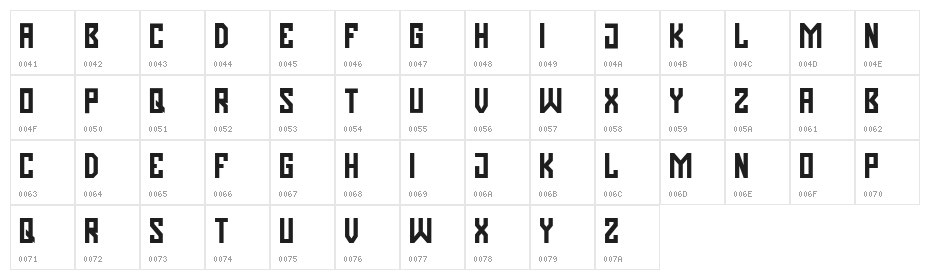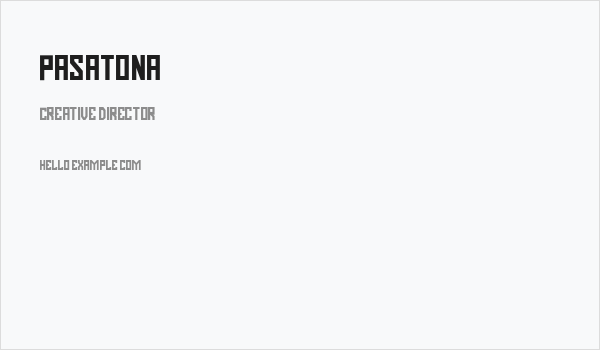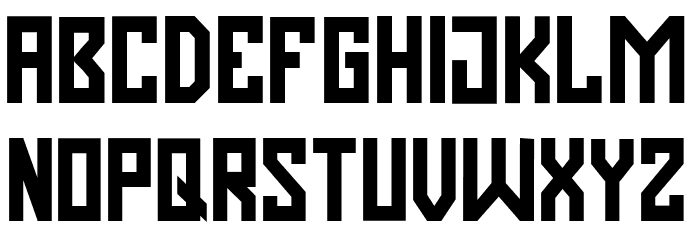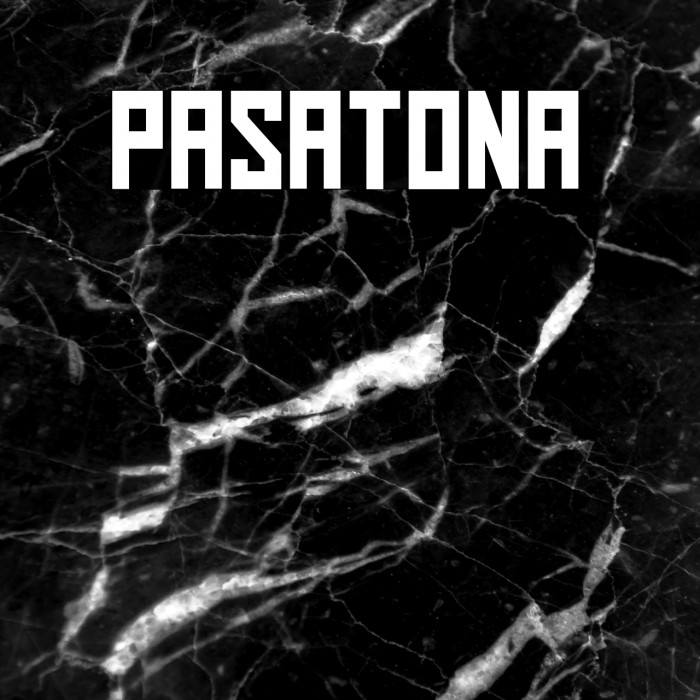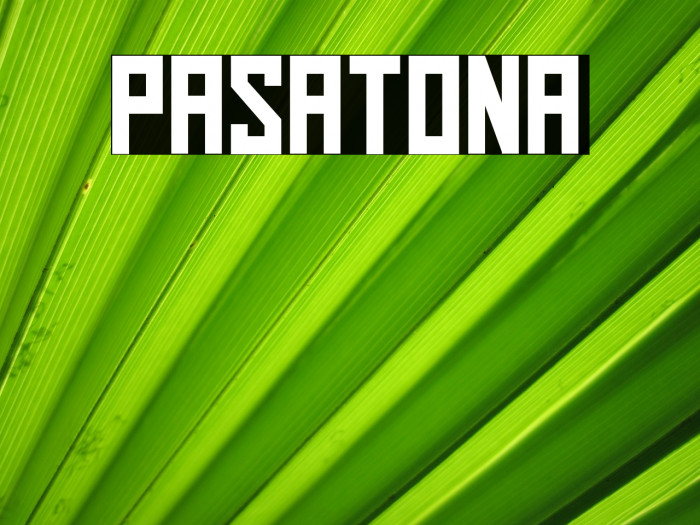
Pasatona Font
Pasatona Description
This font features a bold and geometric design with strong, angular lines and a distinct blocky appearance. The characters are uniformly structured, giving a sense of stability and strength. The uppercase letters dominate the design, showcasing a modern and industrial aesthetic. The font's design is consistent across all characters, maintaining a uniform height and width, which contributes to its cohesive look. The sharp edges and clean lines make it highly legible, even from a distance, making it suitable for impactful visual communication.